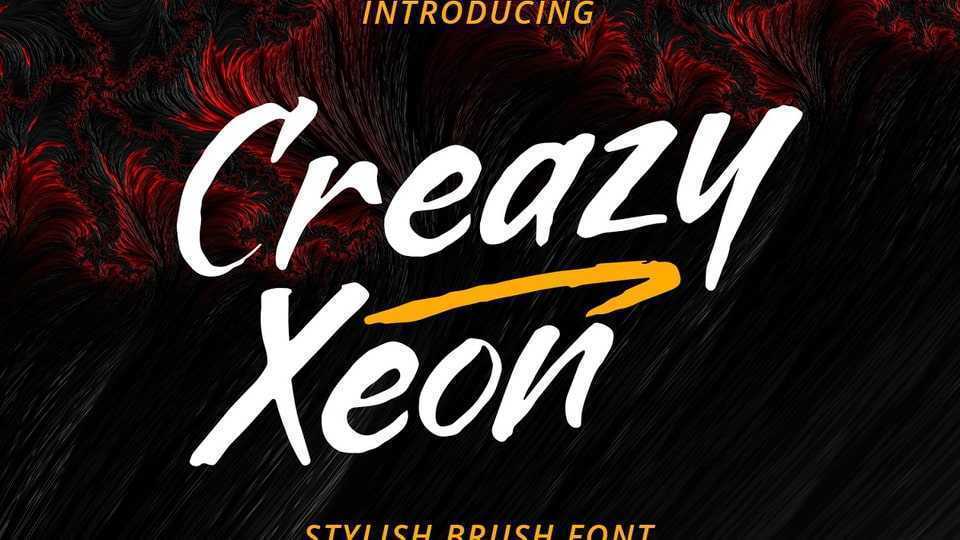
Download Crazy Xeon font, a stylish graffiti brush typeface inspired from graffiti street project art, perfect for cartoon-related designs, label, children’s games, quotes.